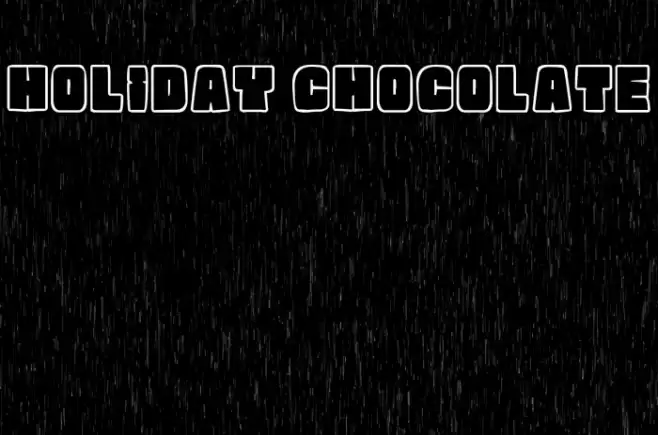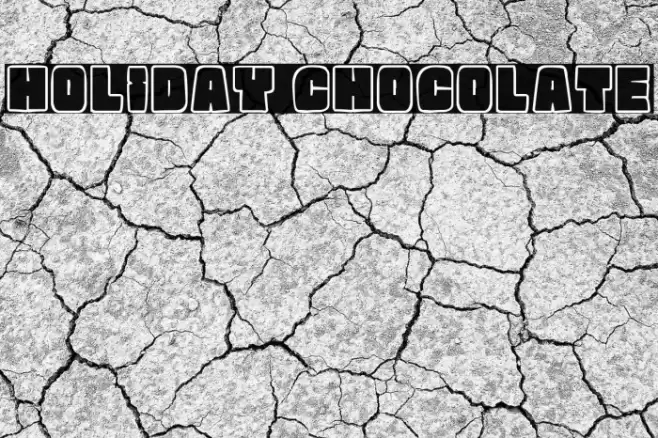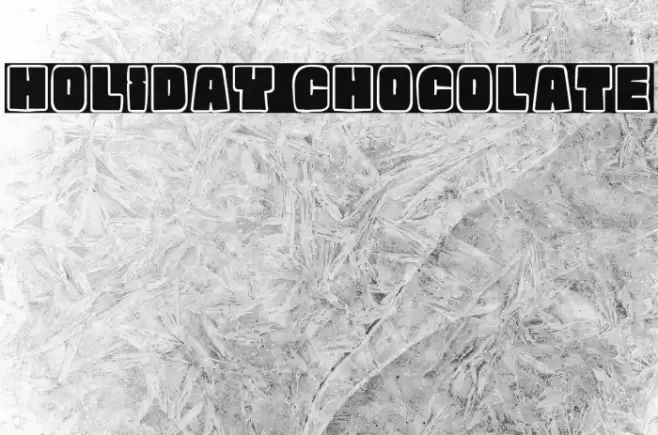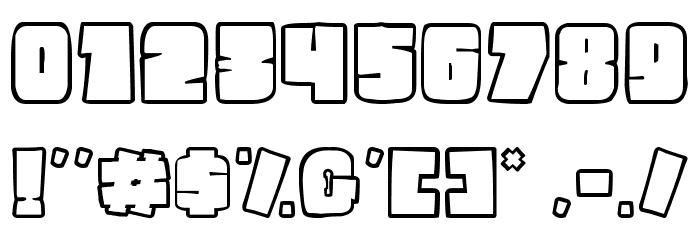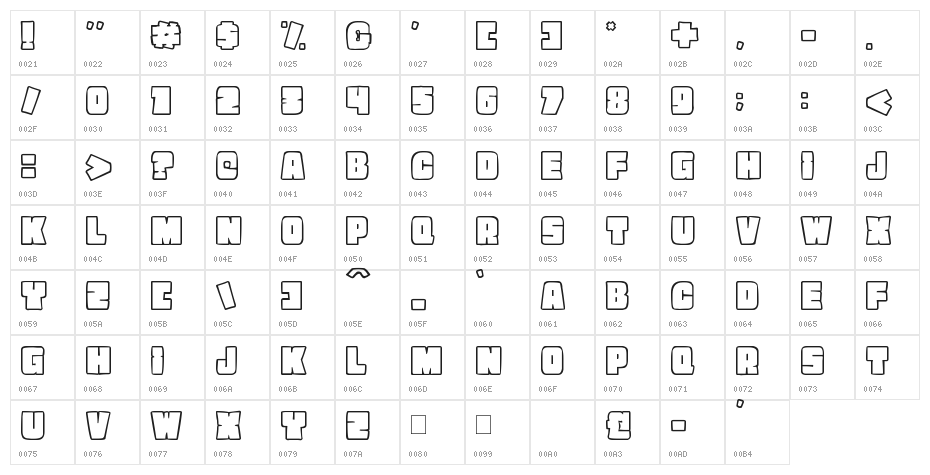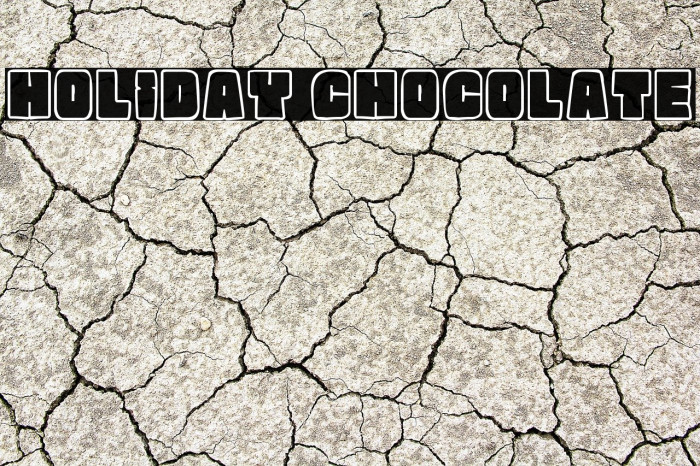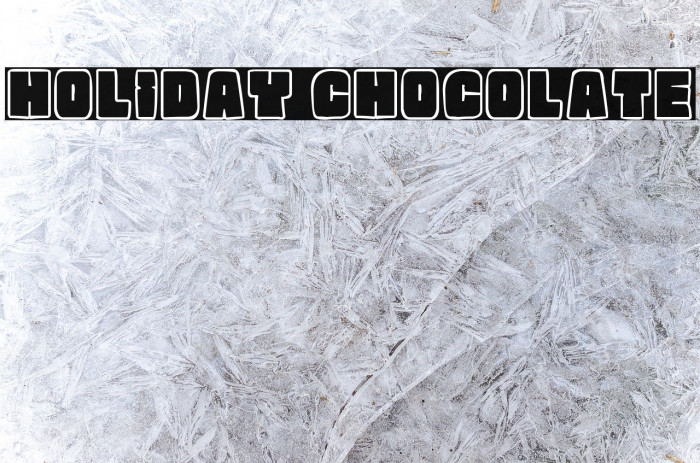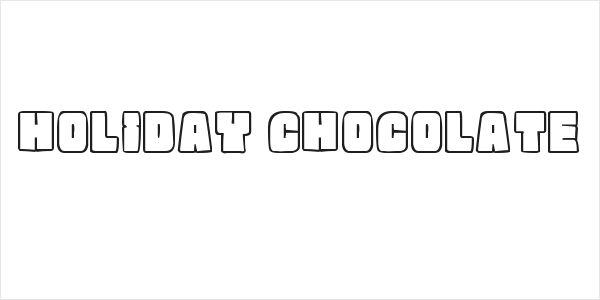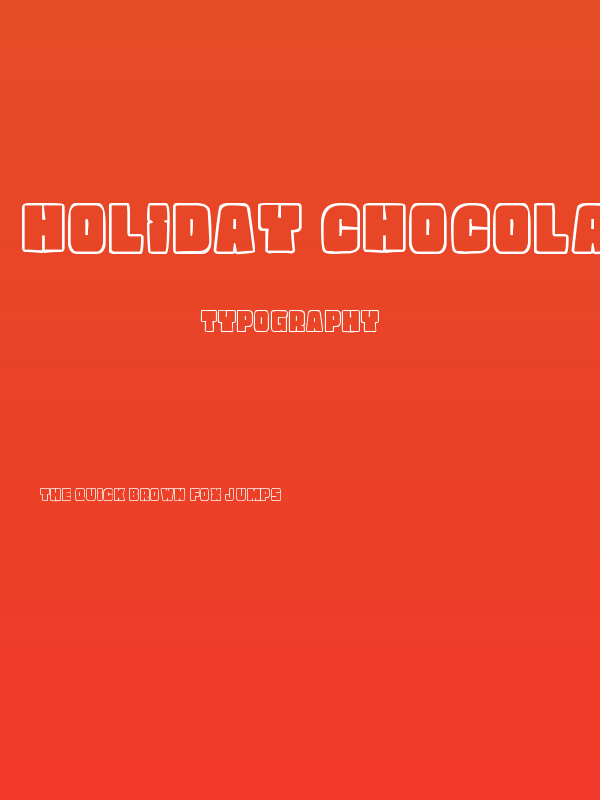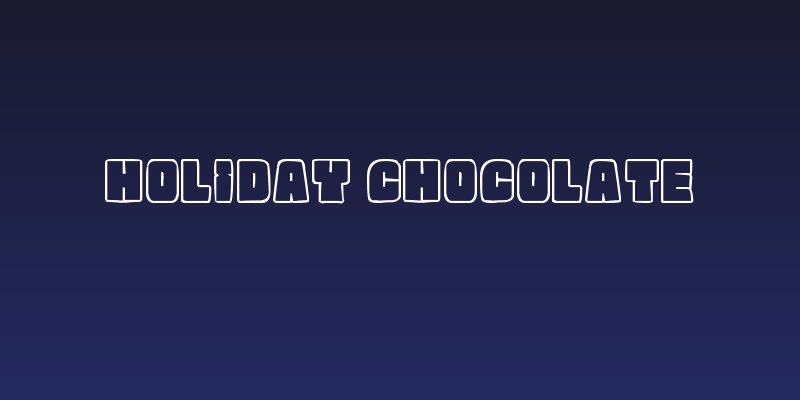
Holiday Chocolate Font
Holiday Chocolate Description
This playful and bold font features a chunky, blocky design with a whimsical touch. Each character is outlined, giving it a distinct, eye-catching appearance. The letters are uniformly wide, with a slightly irregular shape that adds to its charm. The font's style is reminiscent of festive or holiday themes, making it ideal for creating a fun and lively atmosphere. Its boldness ensures high visibility, while the outlined design adds a layer of depth and interest. The numbers and special characters maintain the same playful aesthetic, ensuring consistency across all text elements.
A bold, outlined, and playful font perfect for festive themes from Cartoon fonts.
- Proposed Projects: Ideal for holiday cards, festive banners, children's book covers, and playful branding projects.
- Overall Style: Playful, Festive